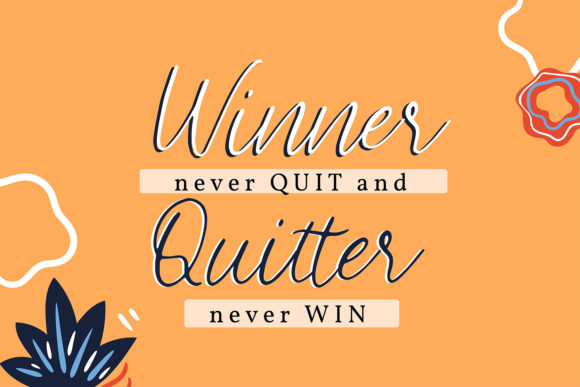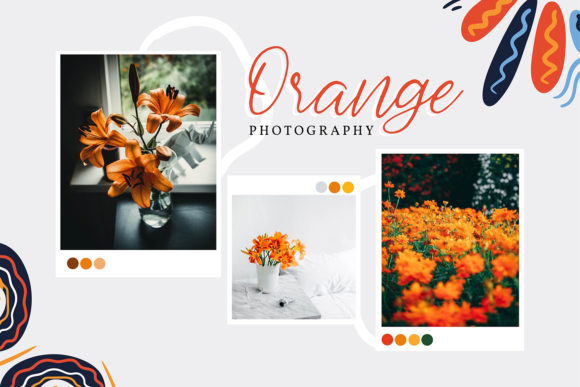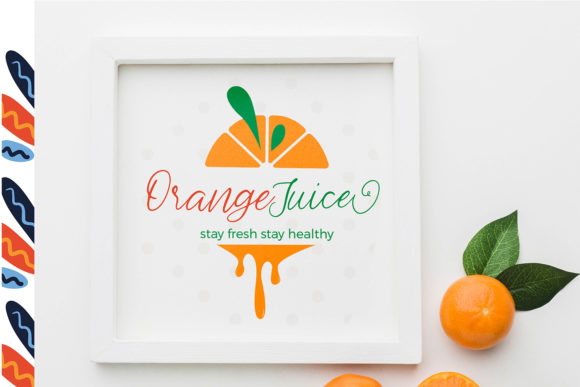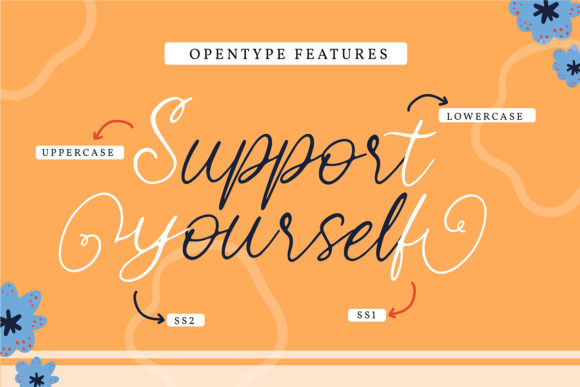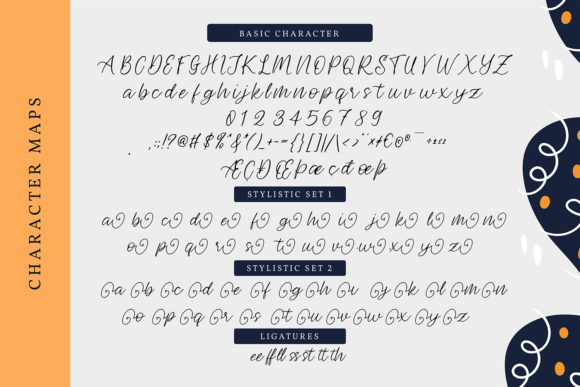
Arabella Font
About Arabella Font
Introducing “Arabella” – a thin and flowing handwritten font that adds a charming touch to any design project. With its delicate strokes and graceful flow, this font is perfect for capturing attention and creating a captivating appearance.
Arabella’s thin and flowing letterforms exude elegance and sophistication. Its charming and graceful style makes it ideal for a wide range of design projects. Whether you’re designing logos, branding materials, invitations, or any other creative endeavor, Arabella will enhance your designs and leave a lasting impression.
This font’s versatility allows it to adapt to various design needs. The thin strokes and flowing nature of Arabella create a sense of movement and elegance. It adds a touch of refinement to your designs while maintaining readability and legibility.
With Arabella’s PUA encoding, you have easy access to a wide range of glyphs and swashes. This feature enables you to explore and experiment with various design elements, giving you the freedom to create unique and customized designs.
Embrace the thin and flowing beauty of Arabella and let it add a charming touch to your designs. Whether you’re creating elegant logos, stylish branding materials, or captivating invitations, Arabella will elevate your projects and create a truly enchanting appearance. Let your creativity flow and make your designs stand out with Arabella!